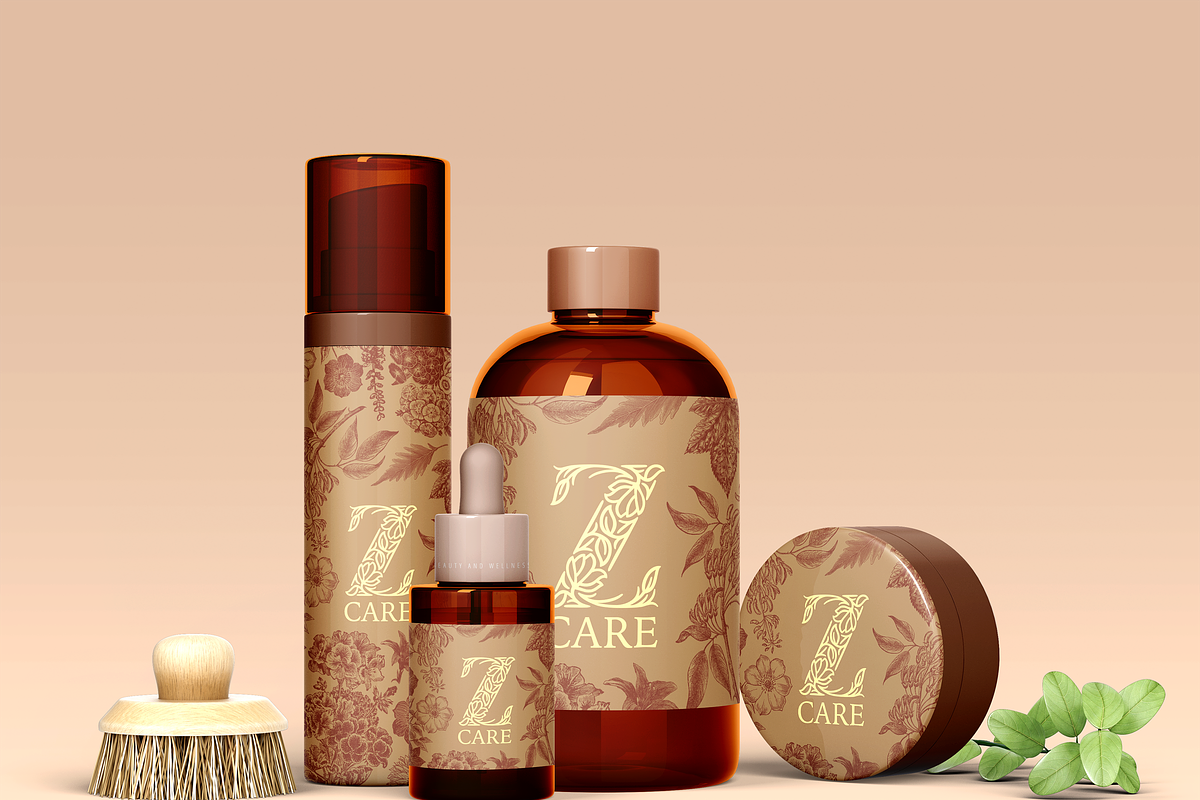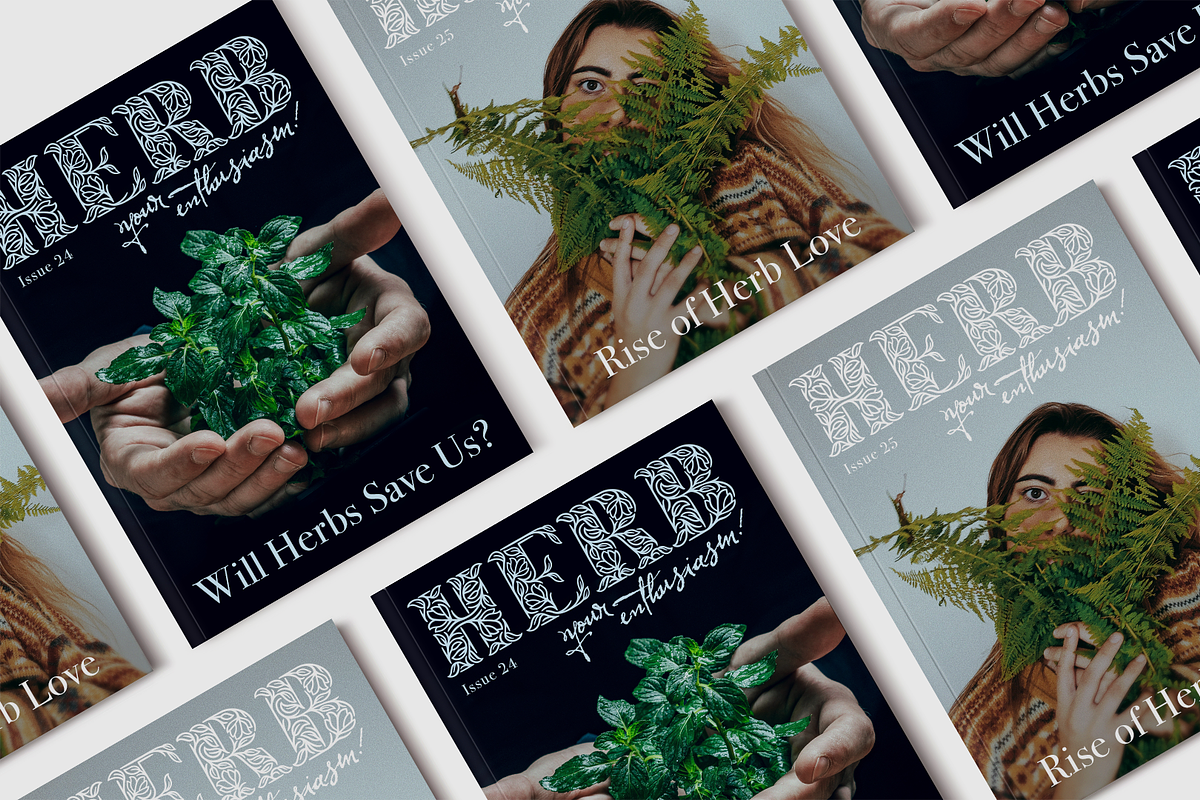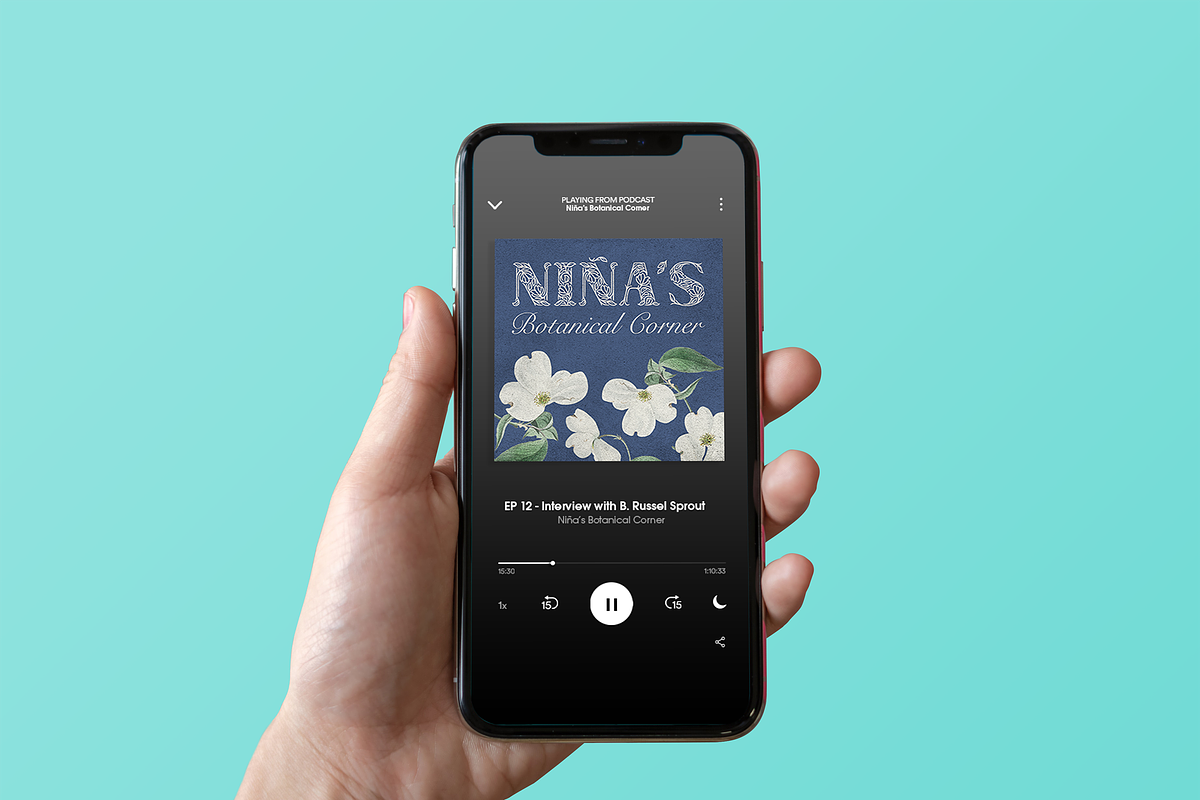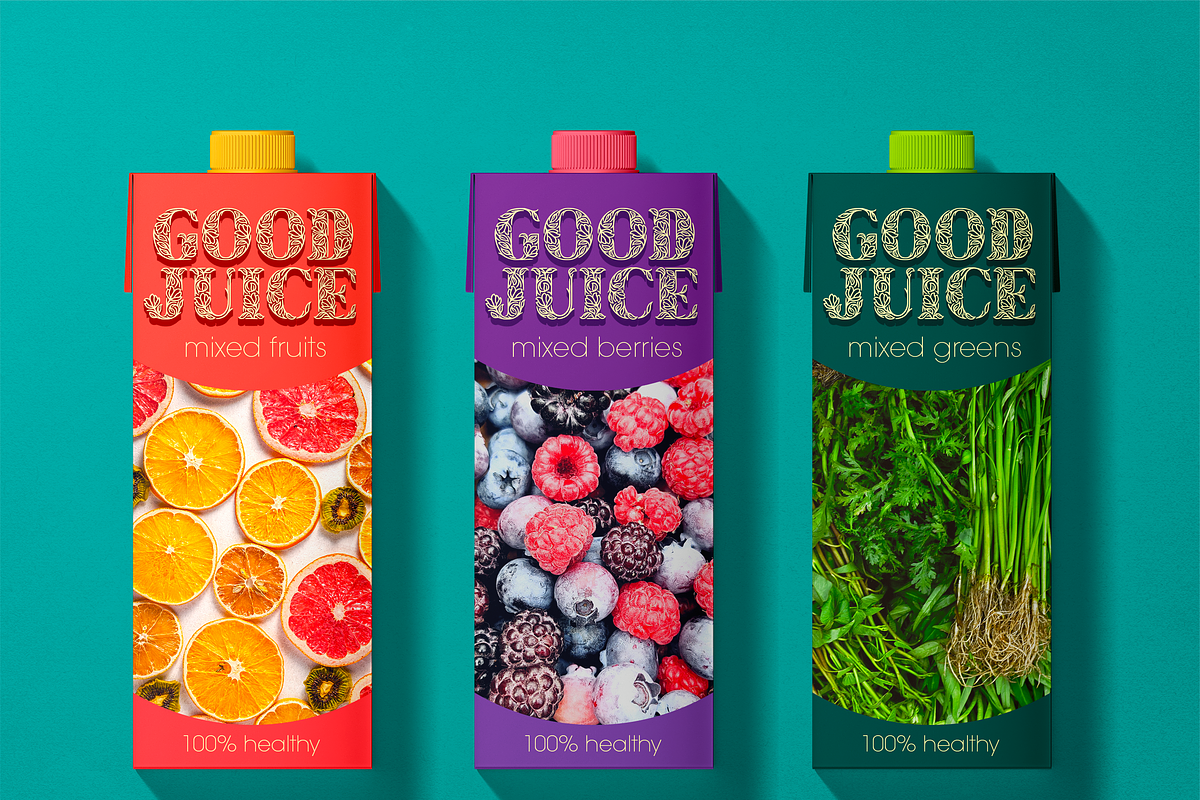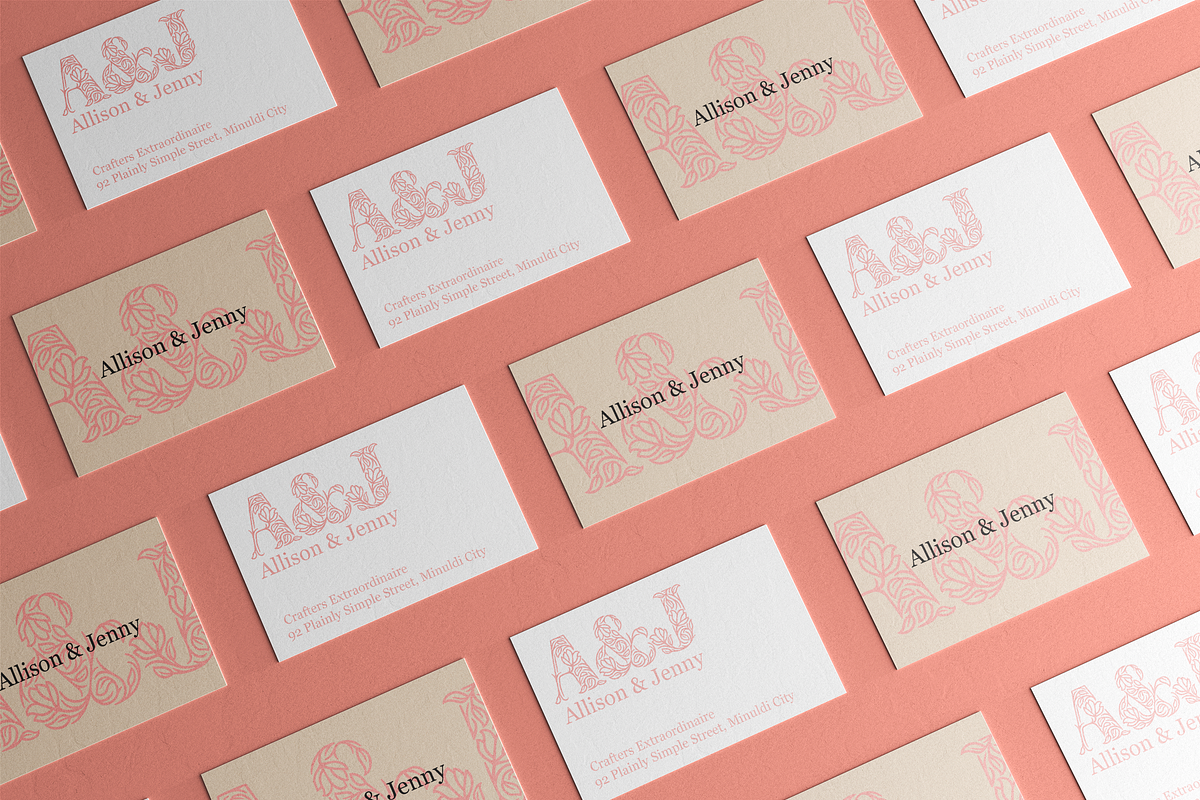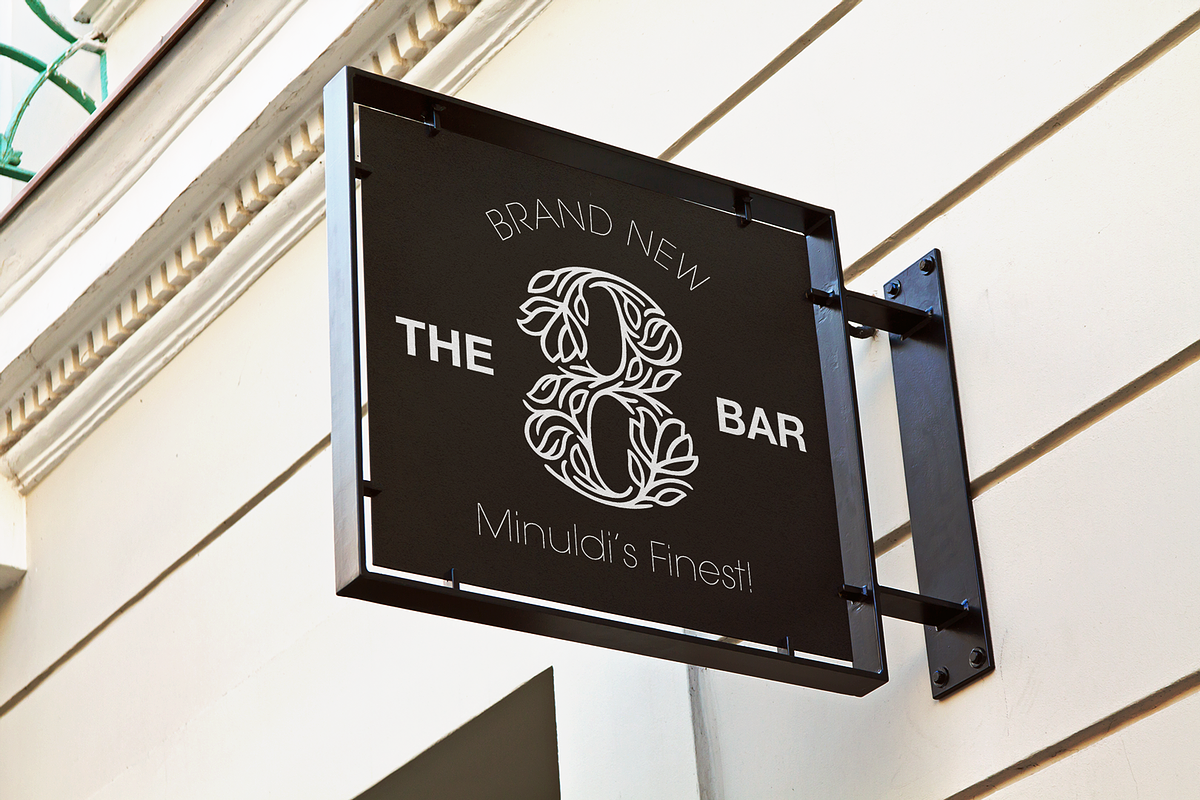
Halaman - Hand Lettered Display Font
Halaman is a Tagalog word that means Plant and that's the them of this font. This font is designed by Tirso Tan Jr., a motion designer from the team. It was based on a previous 36 days of type challenge that he did a few years ago. It's hand crafted with a very detailed plant design that we think would be perfect for wedding invitations, calling cards, and other branding materials.
Examples of how you can use the this
- Wedding invitations
- Restaurant menu
- Logo
- Signage
- Business cards
- Poster
- Packaging